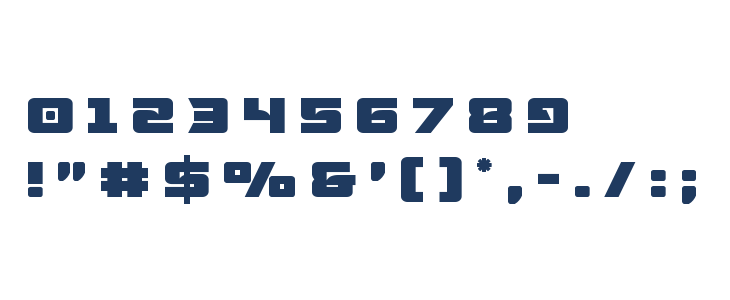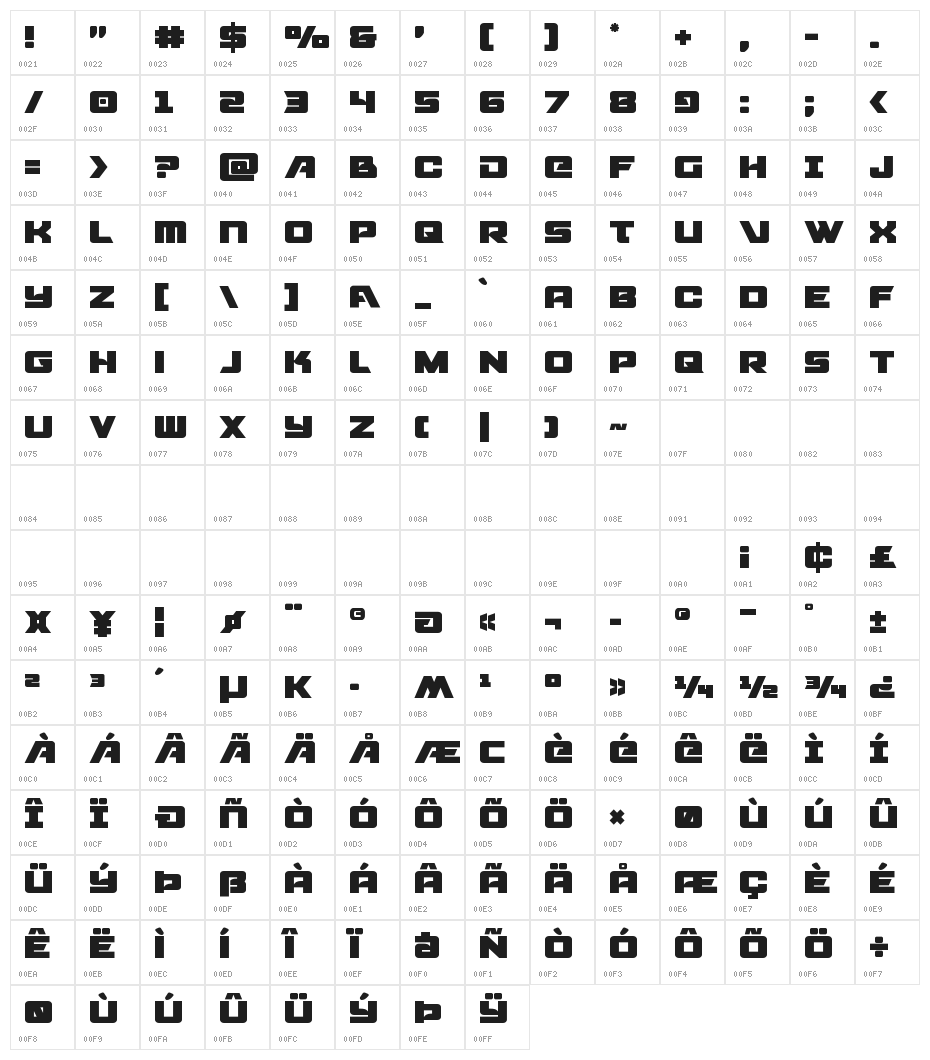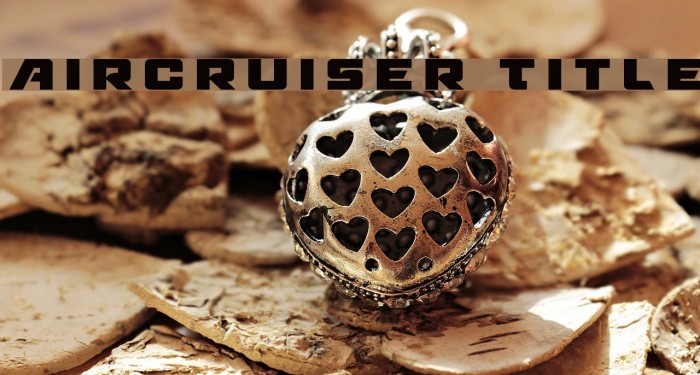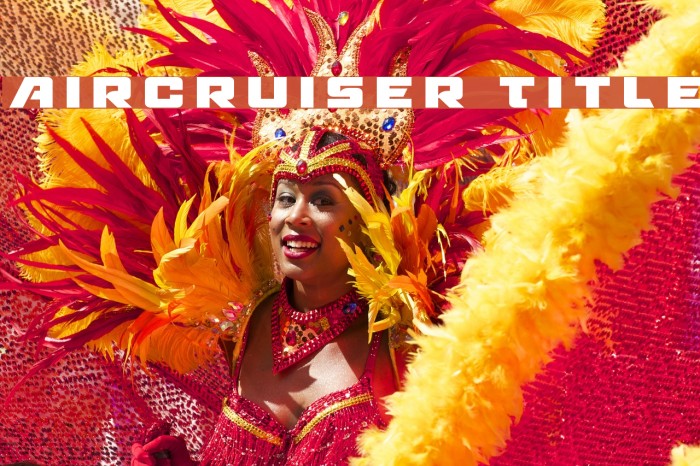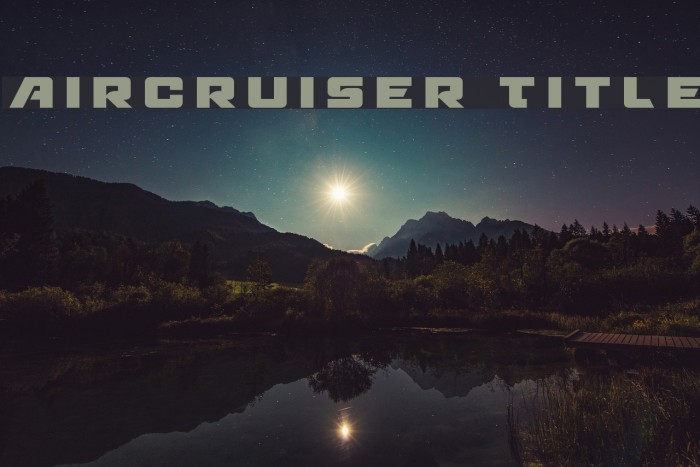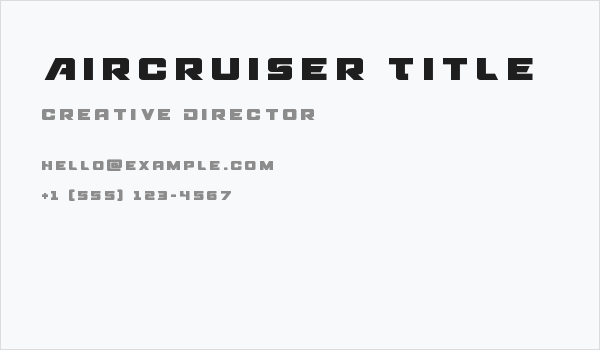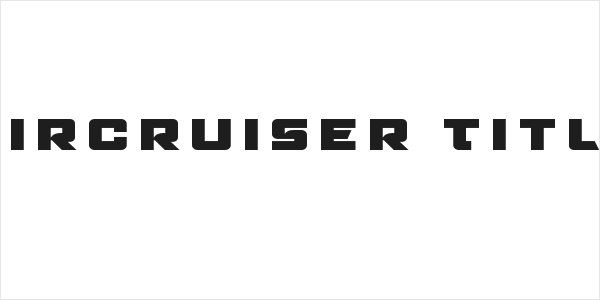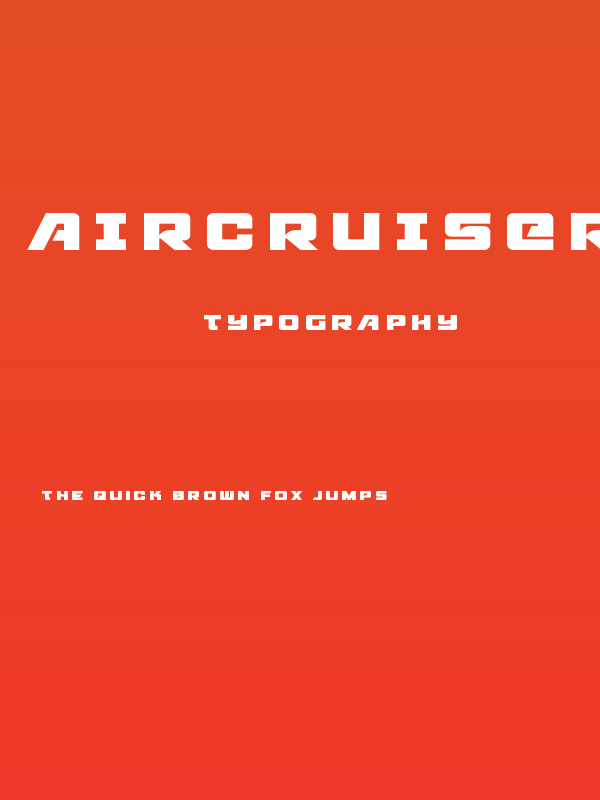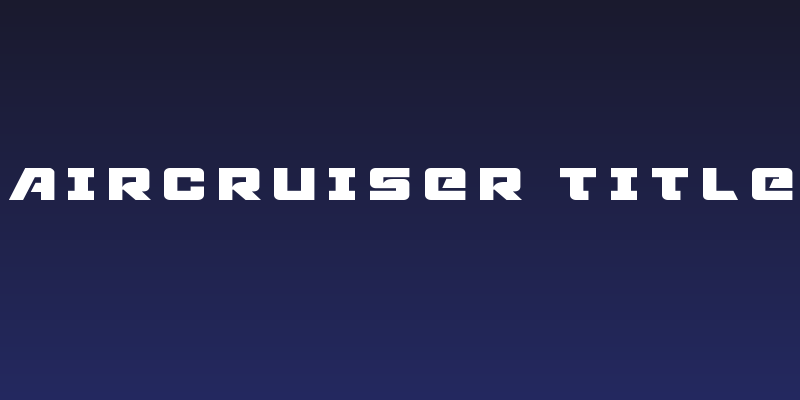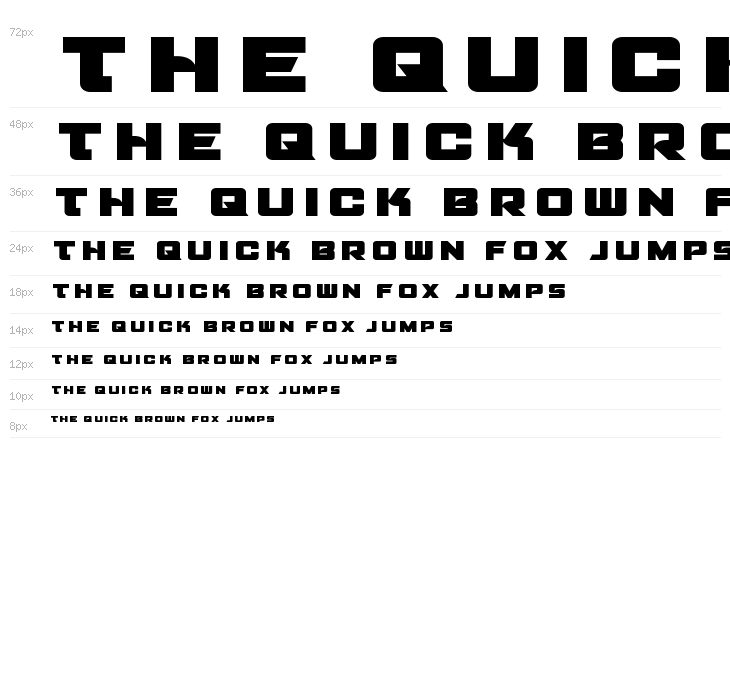
Aircruiser Title Font
Aircruiser Title Description
This font features a bold, geometric design with a futuristic and industrial feel. The uppercase letters are angular and robust, with sharp edges and a consistent stroke width that gives a sense of strength and stability. The lowercase letters maintain this geometric style, ensuring uniformity across the typeface. Numbers are equally bold and structured, making them highly legible. Special characters are designed to match the overall aesthetic, providing a cohesive look. The font's design is ideal for projects that require a modern, tech-inspired appearance.
| Proposed Projects | Ideal for technology branding, sci-fi posters, video game titles, and industrial-themed designs. |